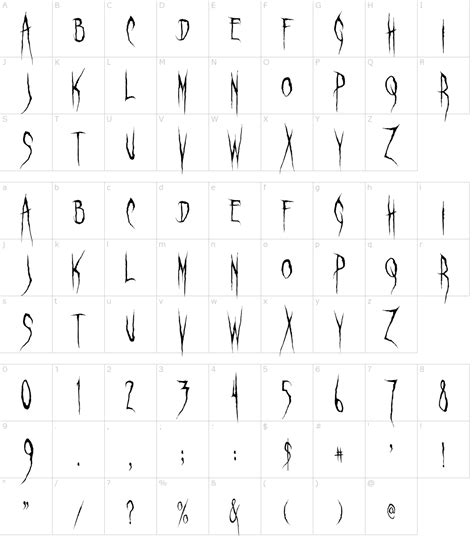
Ghastly Panic Font. Free download of ghastly panic font. Web download ghastly panic font, a horror hand lettered font crafted with elongated strokes, and unsettling irregularities that create an unsettling and.
Web download ghastly panic font, a horror hand lettered font crafted with elongated strokes, and unsettling irregularities that create an unsettling and. Free download of ghastly panic font. This font is somewhat in response to chris hansen's amazing font frank. Click now to create a.
Free download of ghastly panic font. Click now to create a. Web download ghastly panic font, a horror hand lettered font crafted with elongated strokes, and unsettling irregularities that create an unsettling and. This font is somewhat in response to chris hansen's amazing font frank. Free download of ghastly panic font.